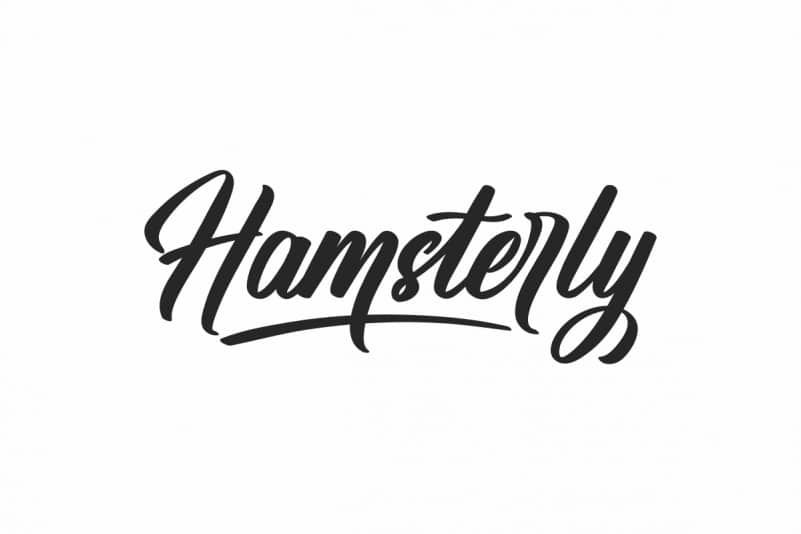
Hamsterly Script Font
The theme style of the font is elegant, luxury, glamour, gold, vintage, stylish, sophisticated and classic brush style. The font will be match for this typeface: wedding, events, real estate, architect, law firm, florist, gardening, makeup artist, travel, hotel, musician etc